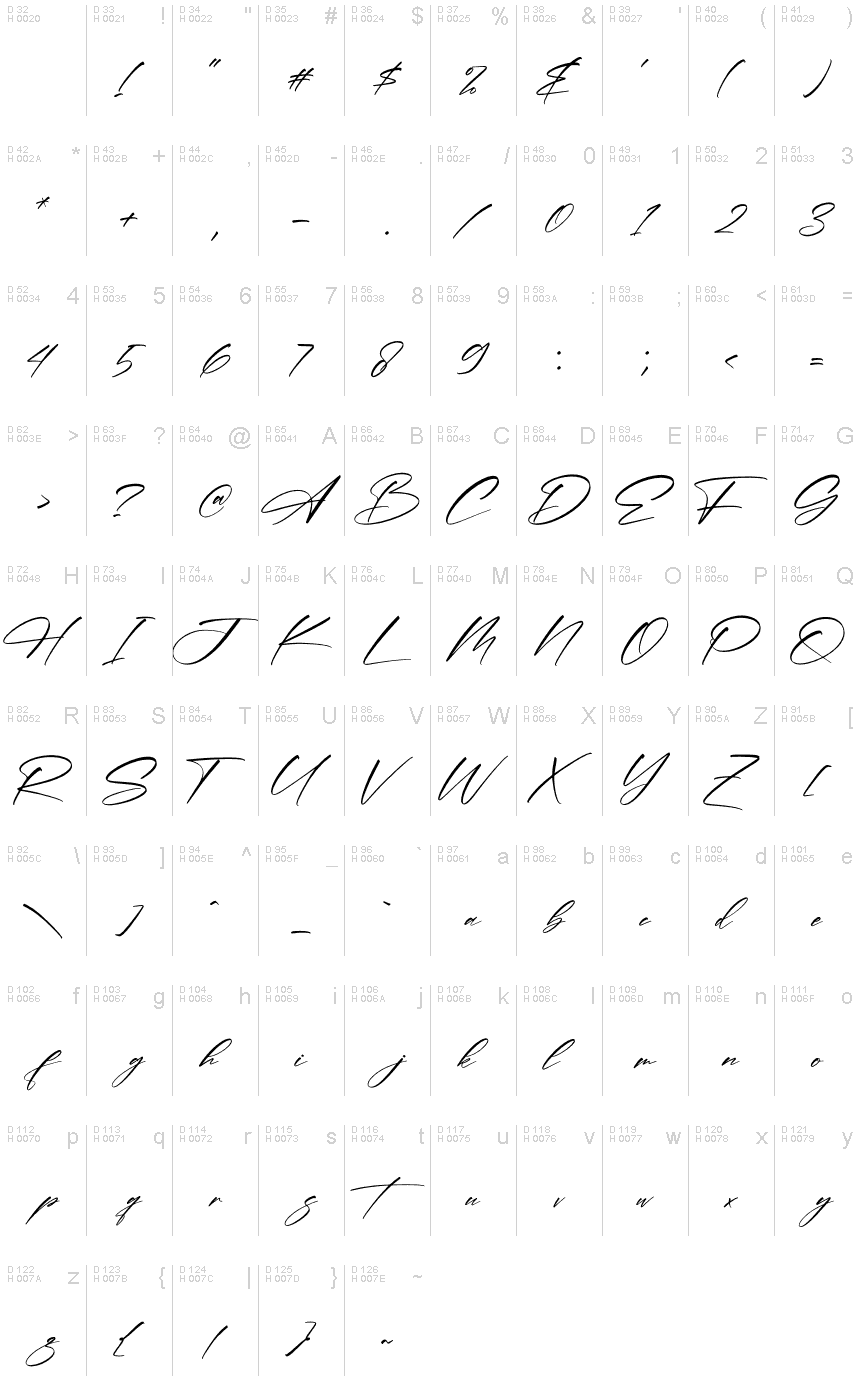
Mantasia, a light signature font by Letterena Studios, brings elegance and sophistication to your designs. With its graceful curves and fluid strokes, this font is perfect for projects that require a touch of finesse.
Use it for wedding invitations, luxury branding, or high-end fashion magazines to evoke a sense of glamour and class. Mantasia's light weight adds an ethereal quality to your text, making it ideal for delicate designs like stationery or feminine logos.
Let Mantasia elevate your design with its effortlessly chic style.